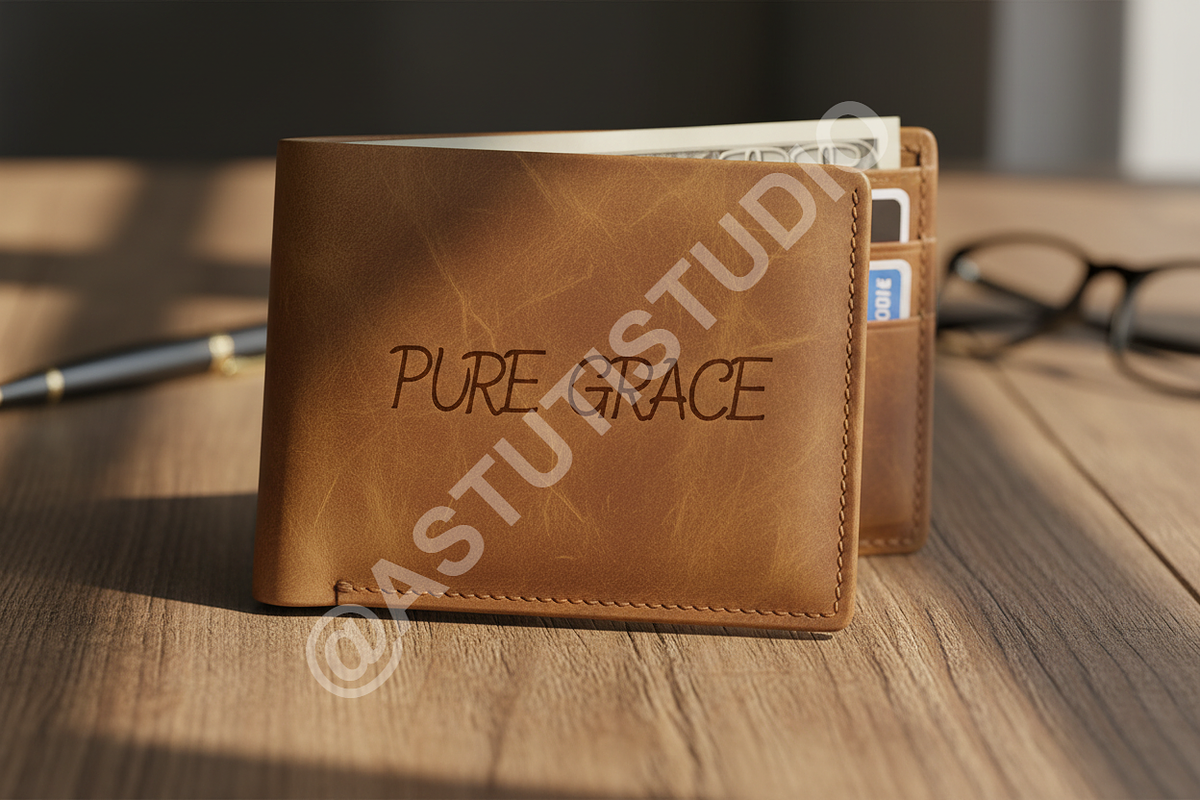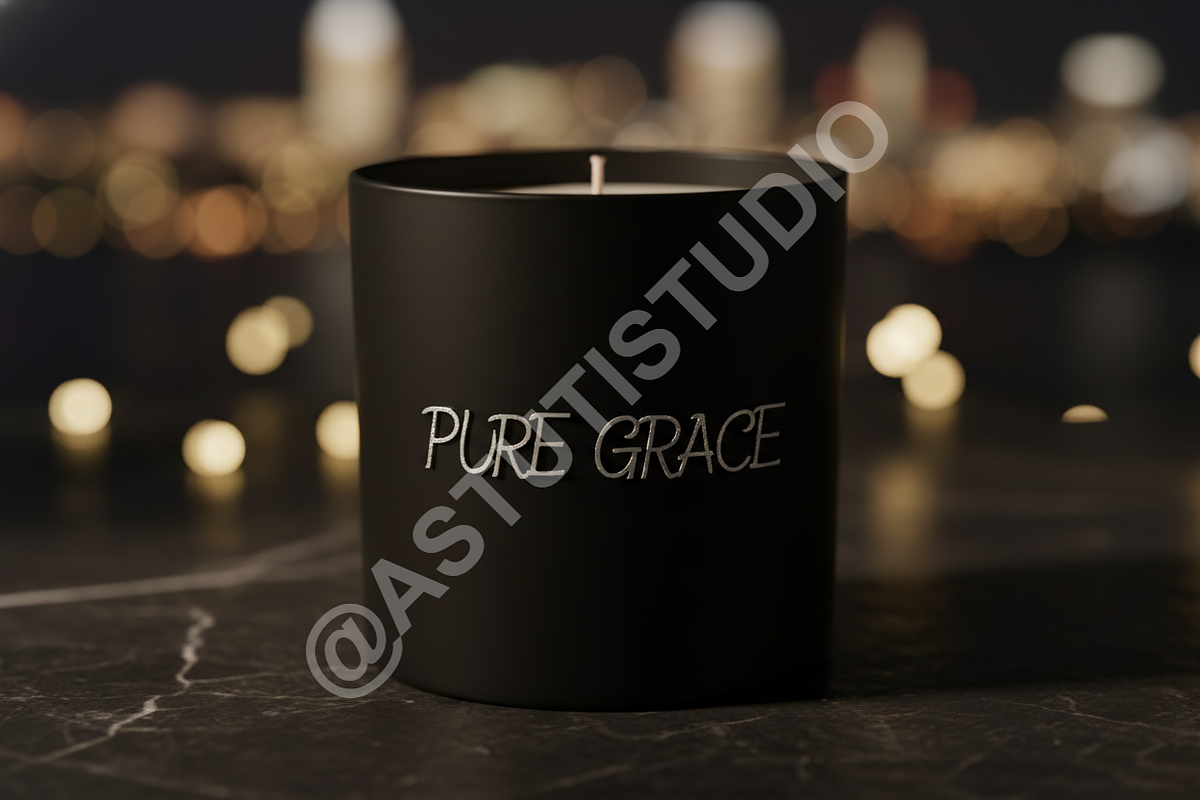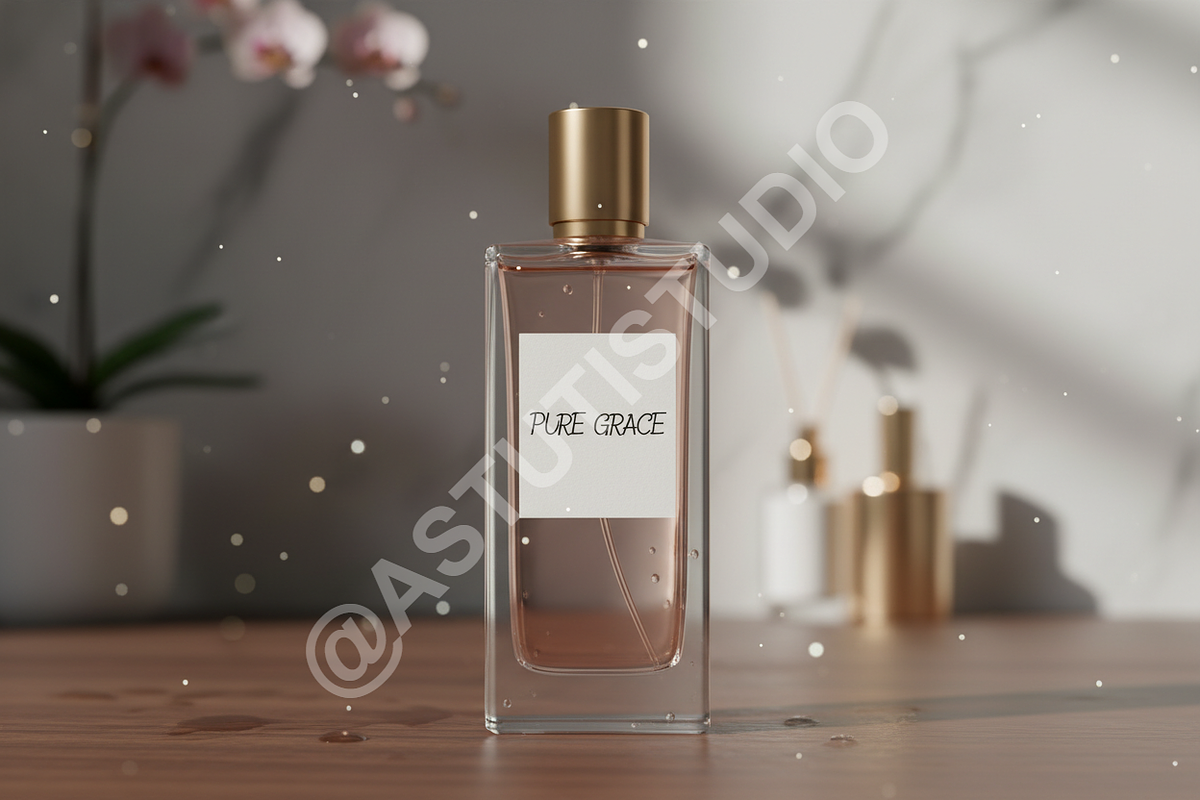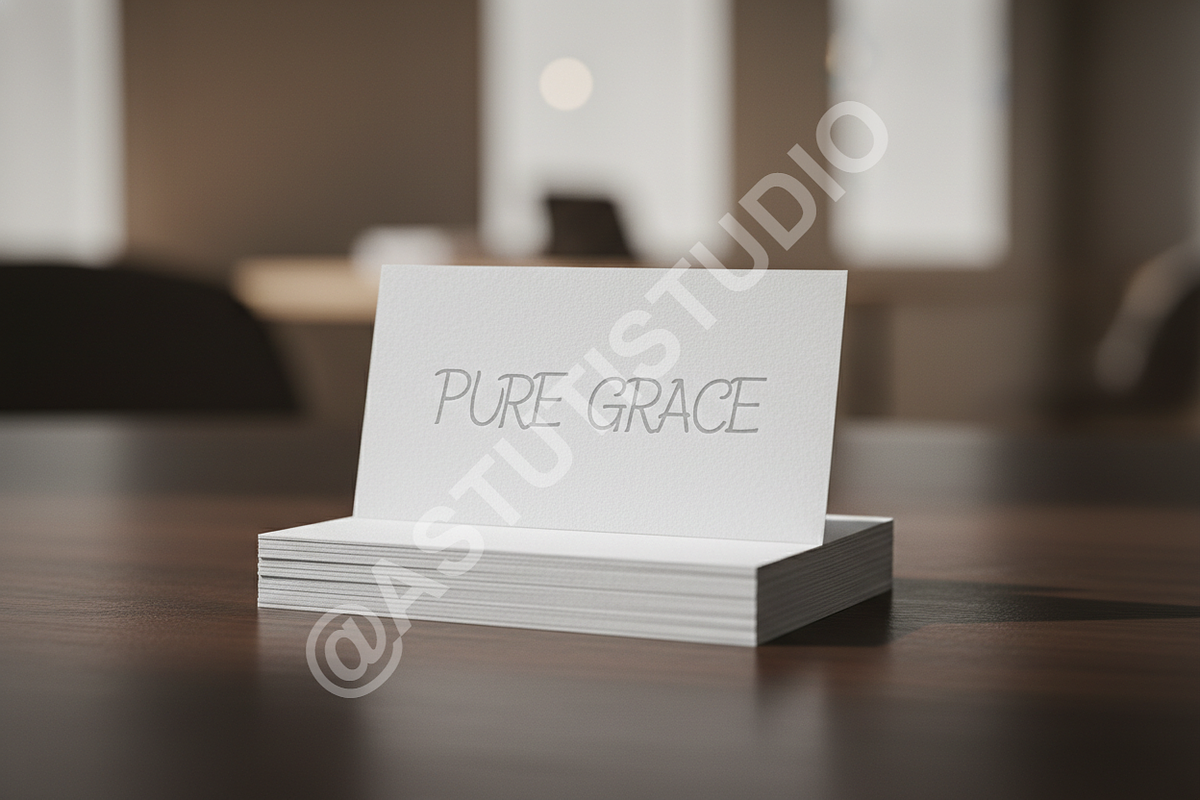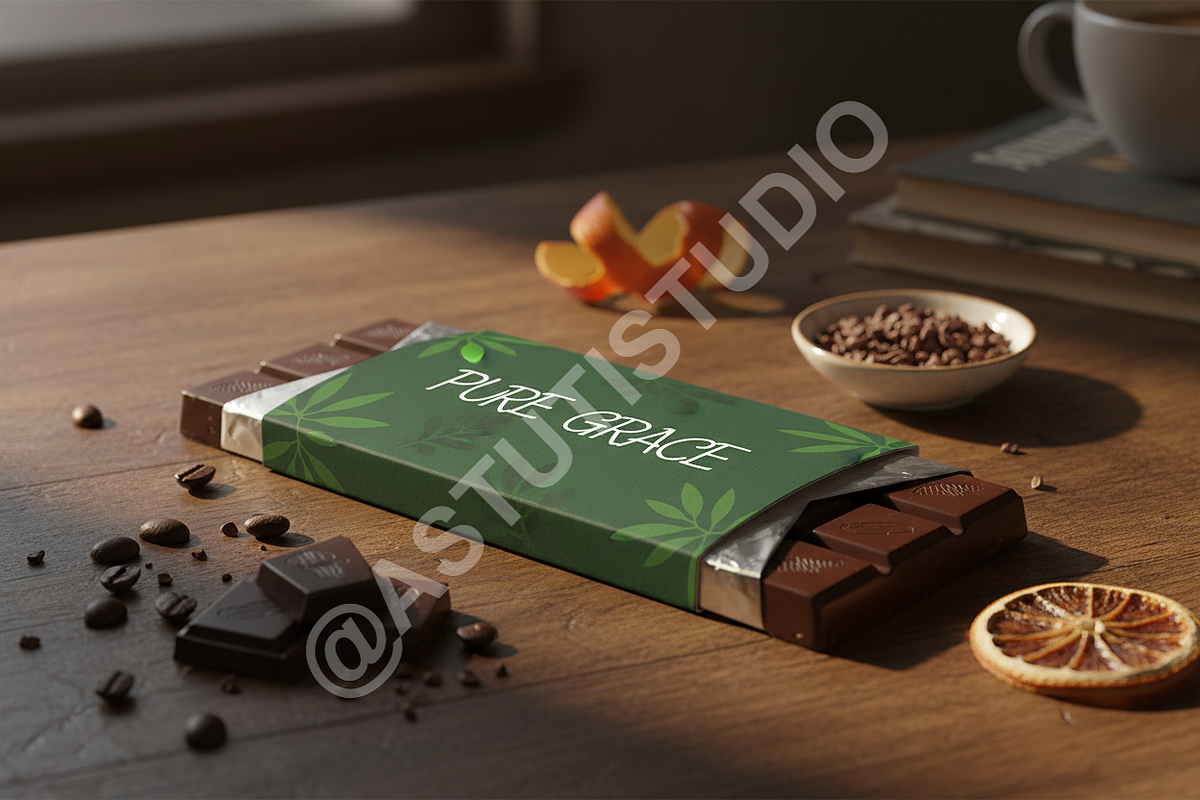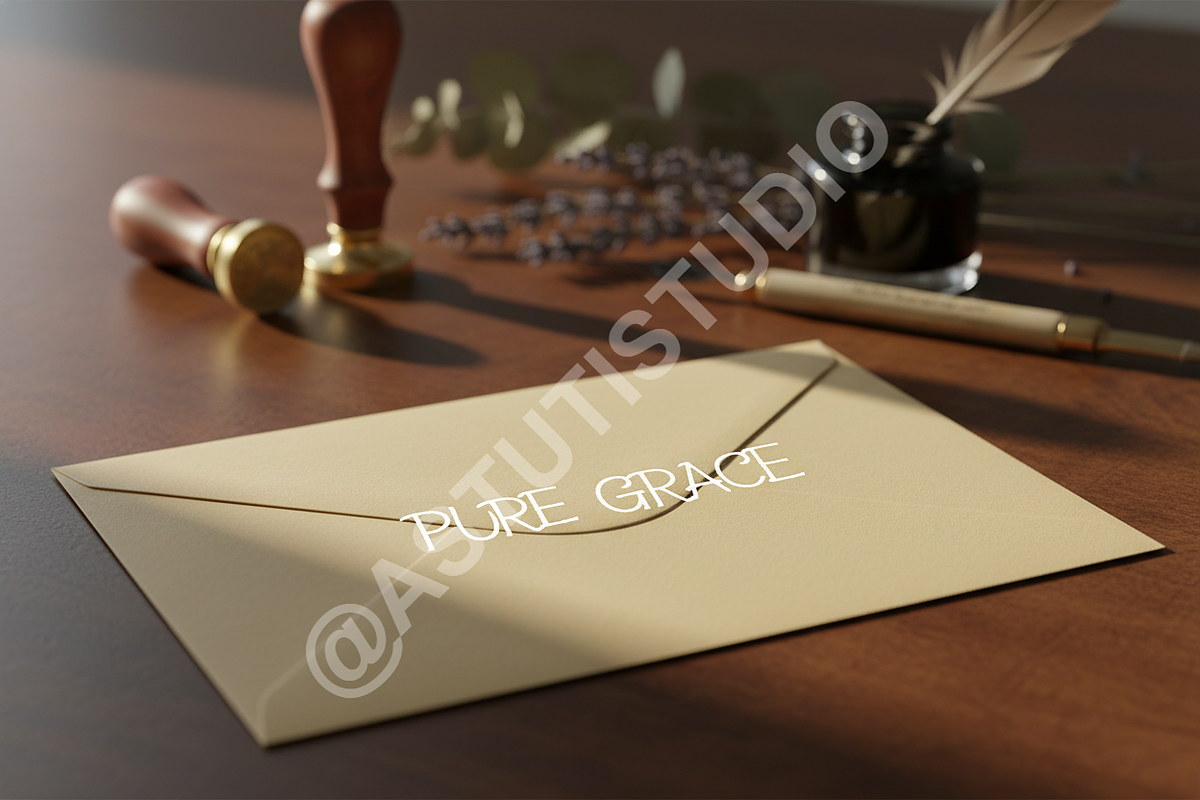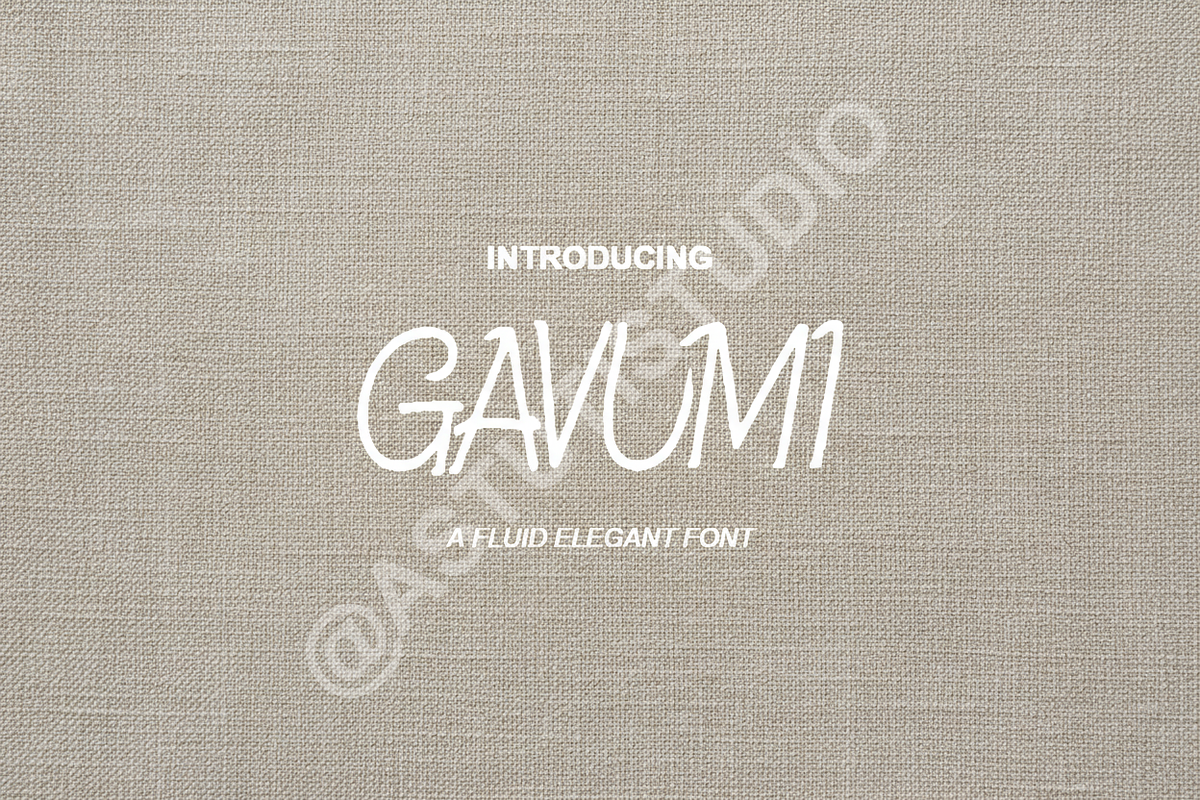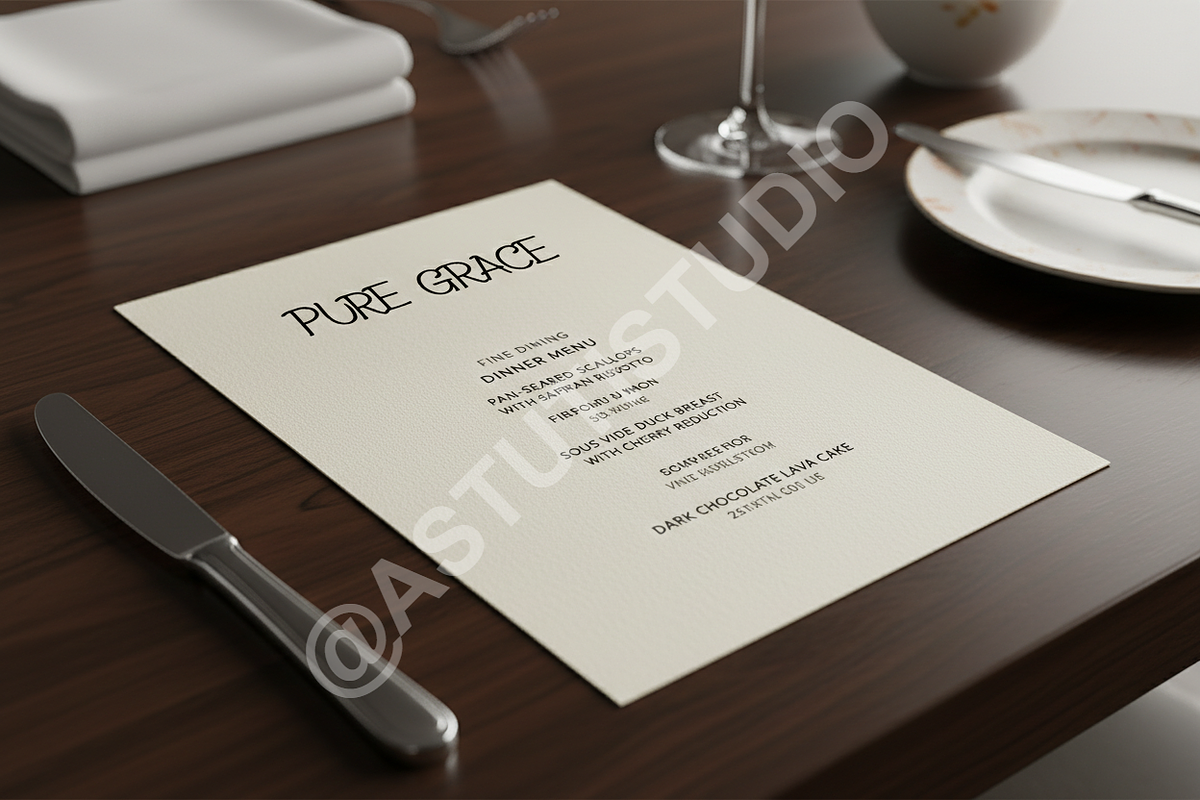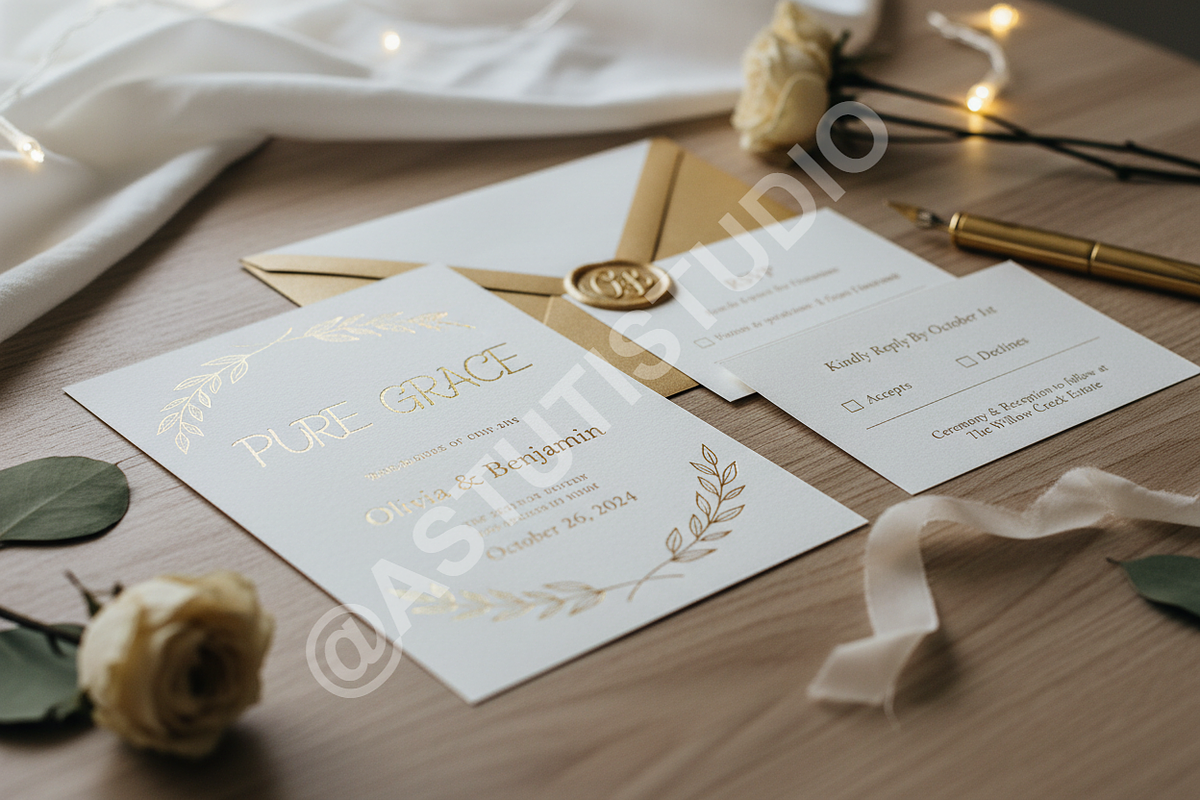
Gavumi – Elegant Modern Serif Font
Welcome to Gavumi, an exquisite modern serif font designed to elevate your creative projects with an unparalleled touch of sophistication and luxury. Gavumi embodies a harmonious blend of classic elegance and contemporary style, making it the perfect choice for high-end branding, captivating editorial designs, and impactful social media visuals.
- Sophisticated Serif Design: Crafted with meticulous attention to detail, Gavumi features elegant curves and sharp serifs that exude timeless grace.
- Versatile Application: Ideal for luxury branding, fashion magazines, editorial layouts, wedding invitations, elegant logos, headlines, and refined social media graphics.
- Optimal Readability: Designed for both display and body text, ensuring clarity and impact across various applications.
- Multilingual Support: Extend your reach with comprehensive glyphs for a wide range of languages.
- Ligatures & Alternates: Includes a selection of stylistic ligatures and alternate characters to add a unique, custom feel to your typography.